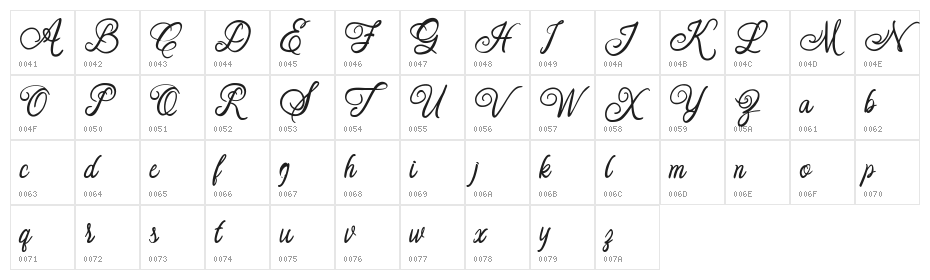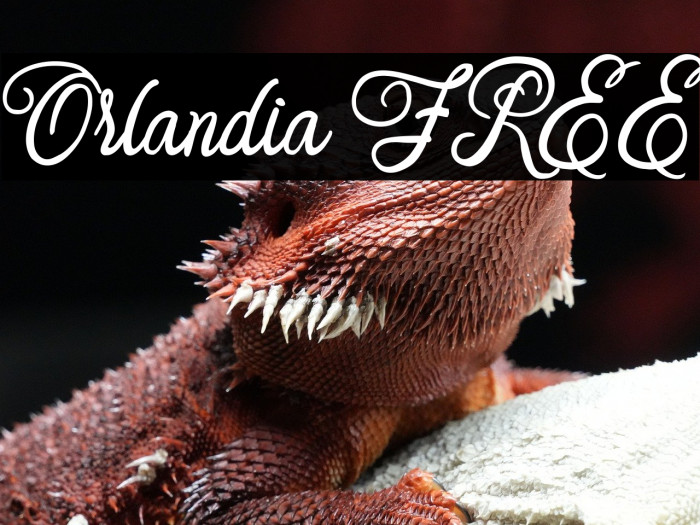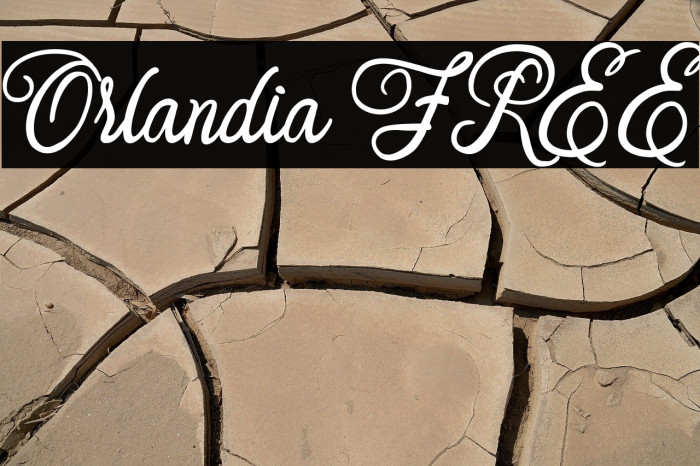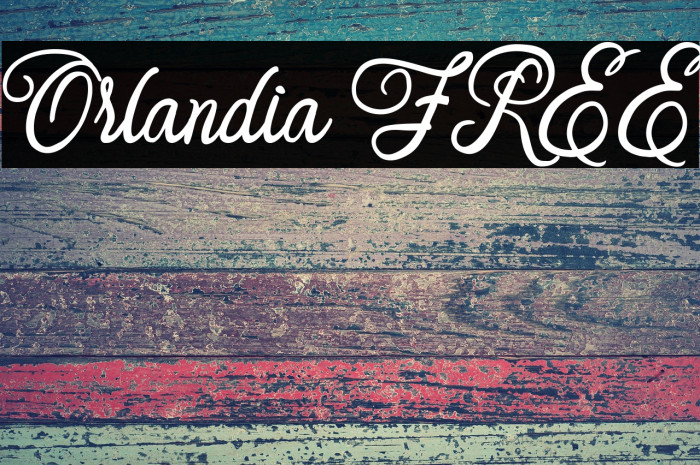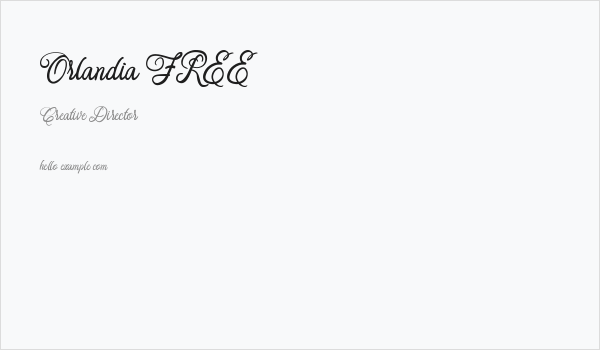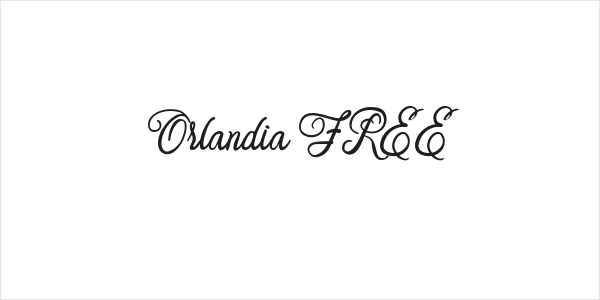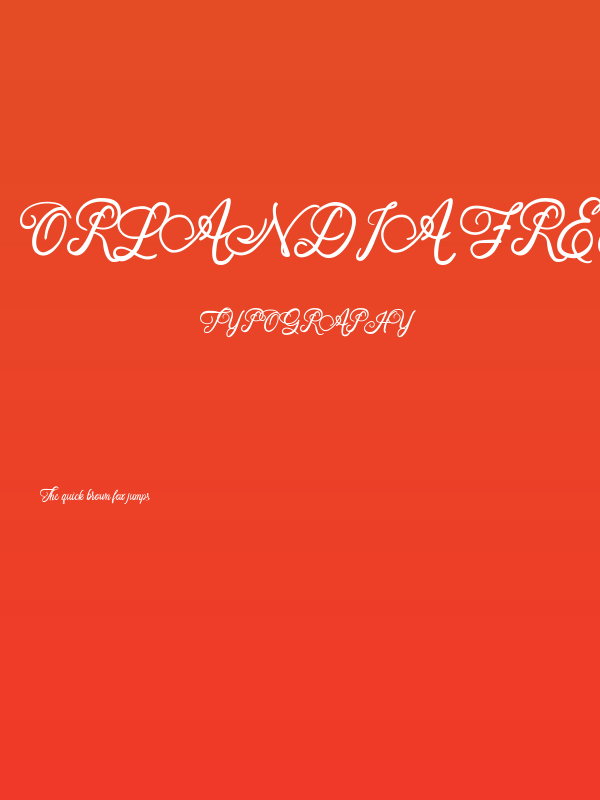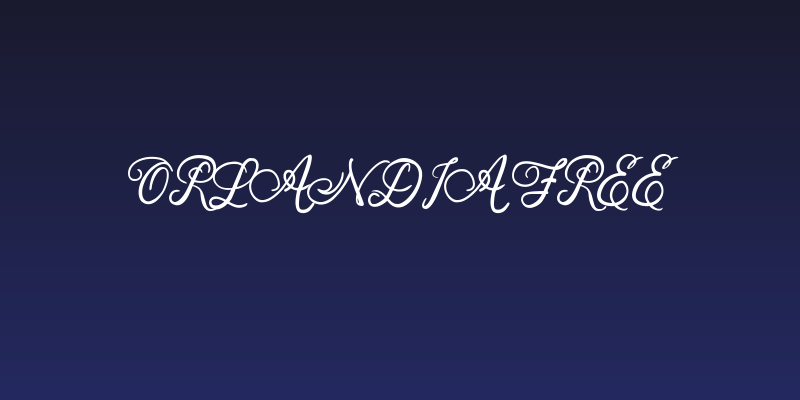
Orlandia FREE Font
Orlandia FREE Description
This font features an elegant and flowing script style, characterized by its intricate and decorative letterforms. The uppercase letters are particularly ornate, with elaborate loops and swirls that give a sense of sophistication and grace. The lowercase letters maintain a consistent flow, complementing the uppercase with a slightly more restrained yet still decorative appearance. The overall design is reminiscent of classic calligraphy, making it suitable for projects that require a touch of elegance and refinement. The font's style is both artistic and readable, balancing decorative elements with legibility.
| Use Case | Headlines, Invitations, Logos |
| Proposed Projects | Ideal for wedding invitations, elegant branding, greeting cards, and decorative headings. |